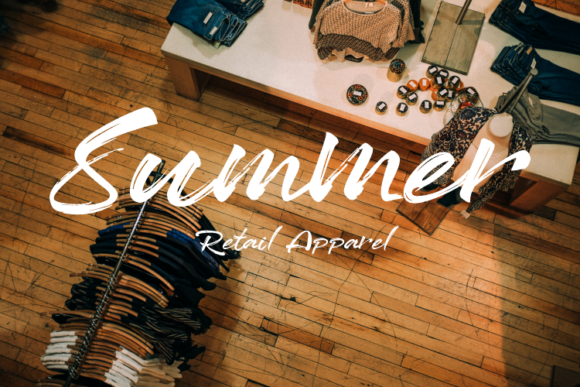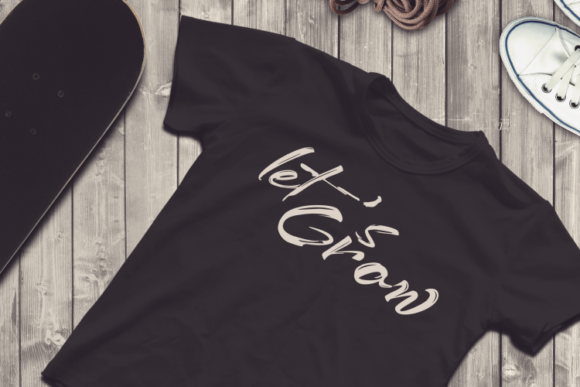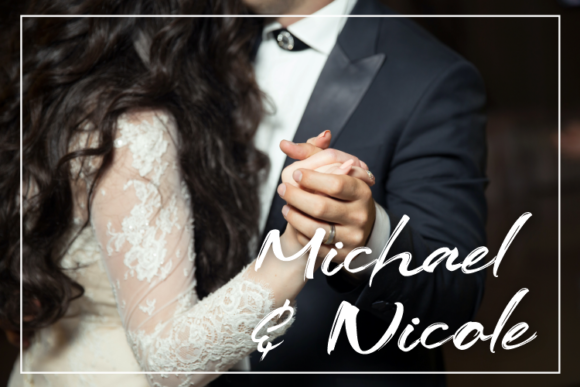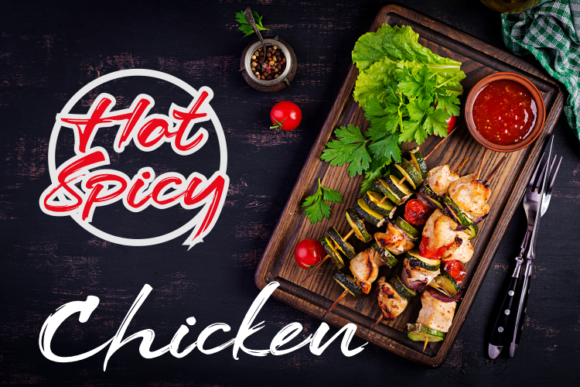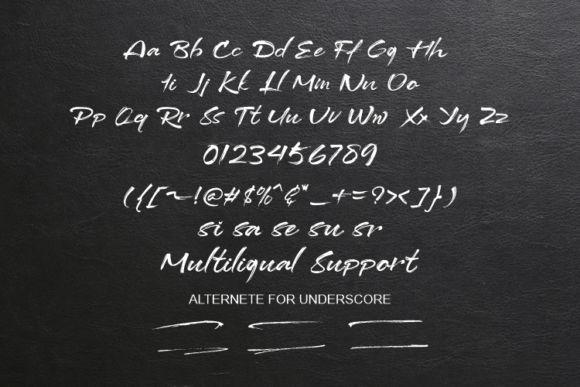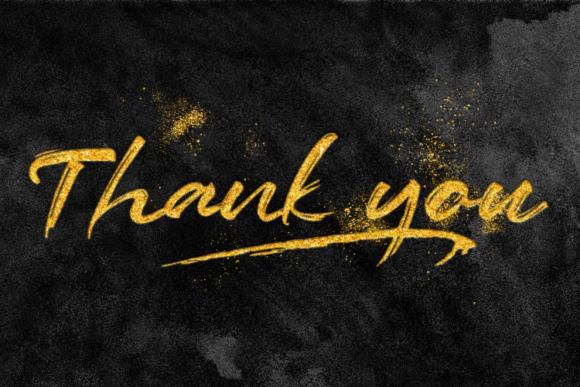
About Dottaaz Font
Dottaaz is a great brush scrip font with a natural look. This font is perfect for signatures, logos, wedding invitations, studio silhouette, decorative designs and many projects which require a strong natural feel. Add this font to your creative ideas and notice how it will make them stand out!This font is PUA encoded which means you can access all of the glyphs and swashes with ease!